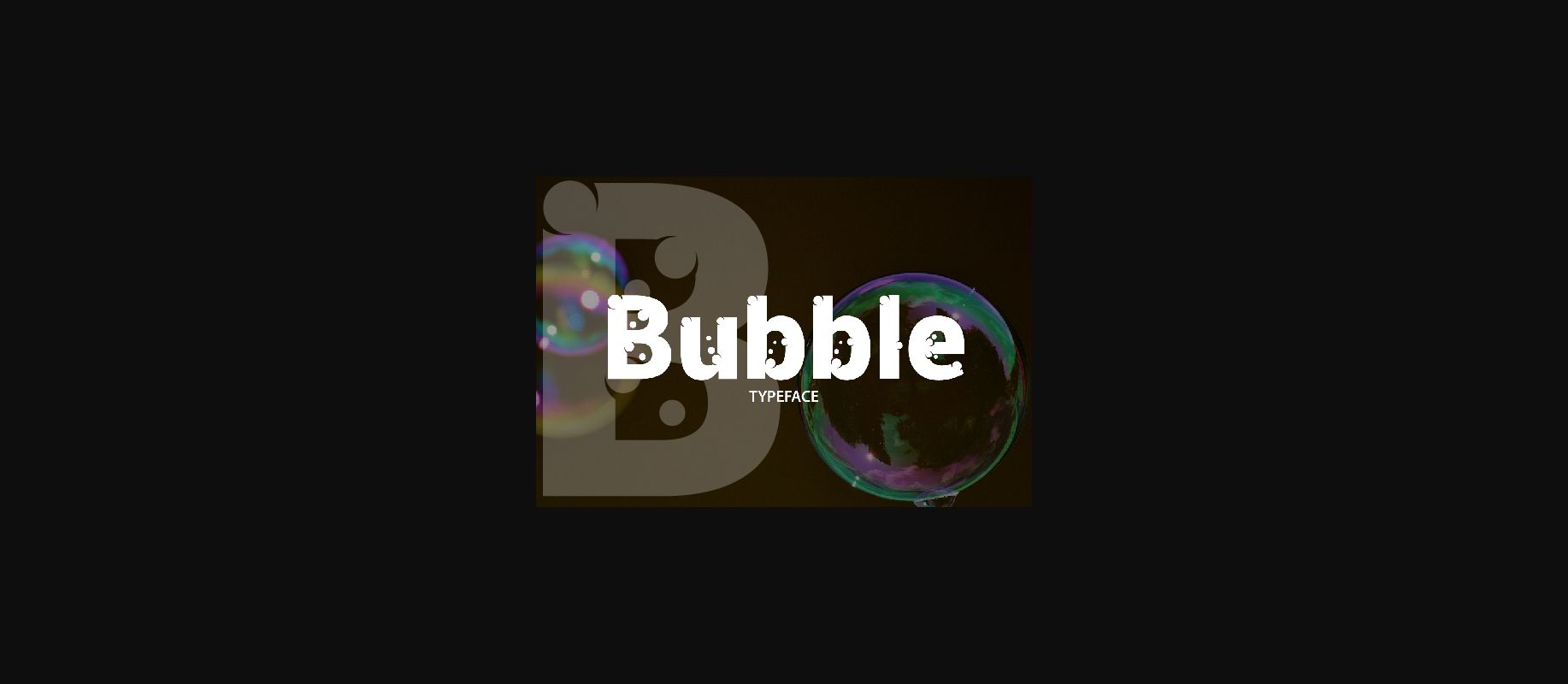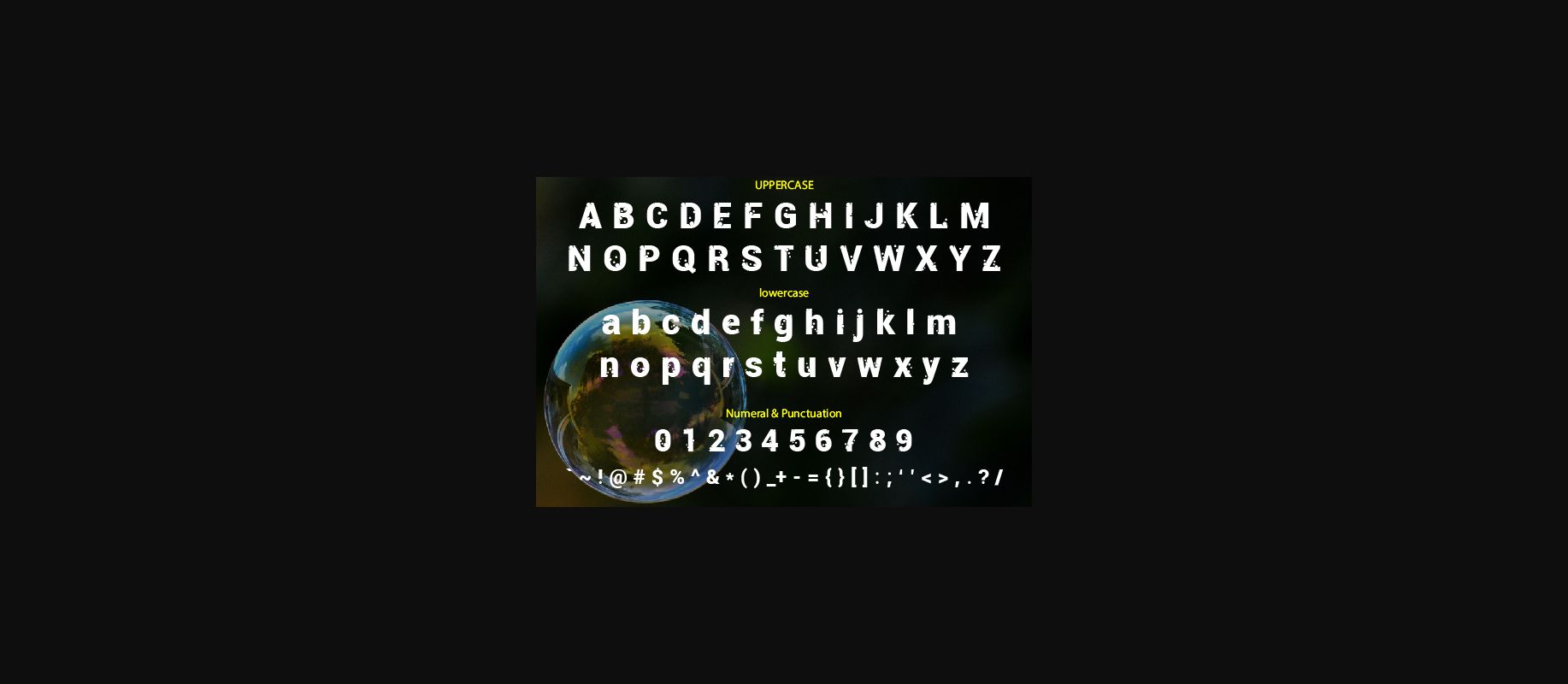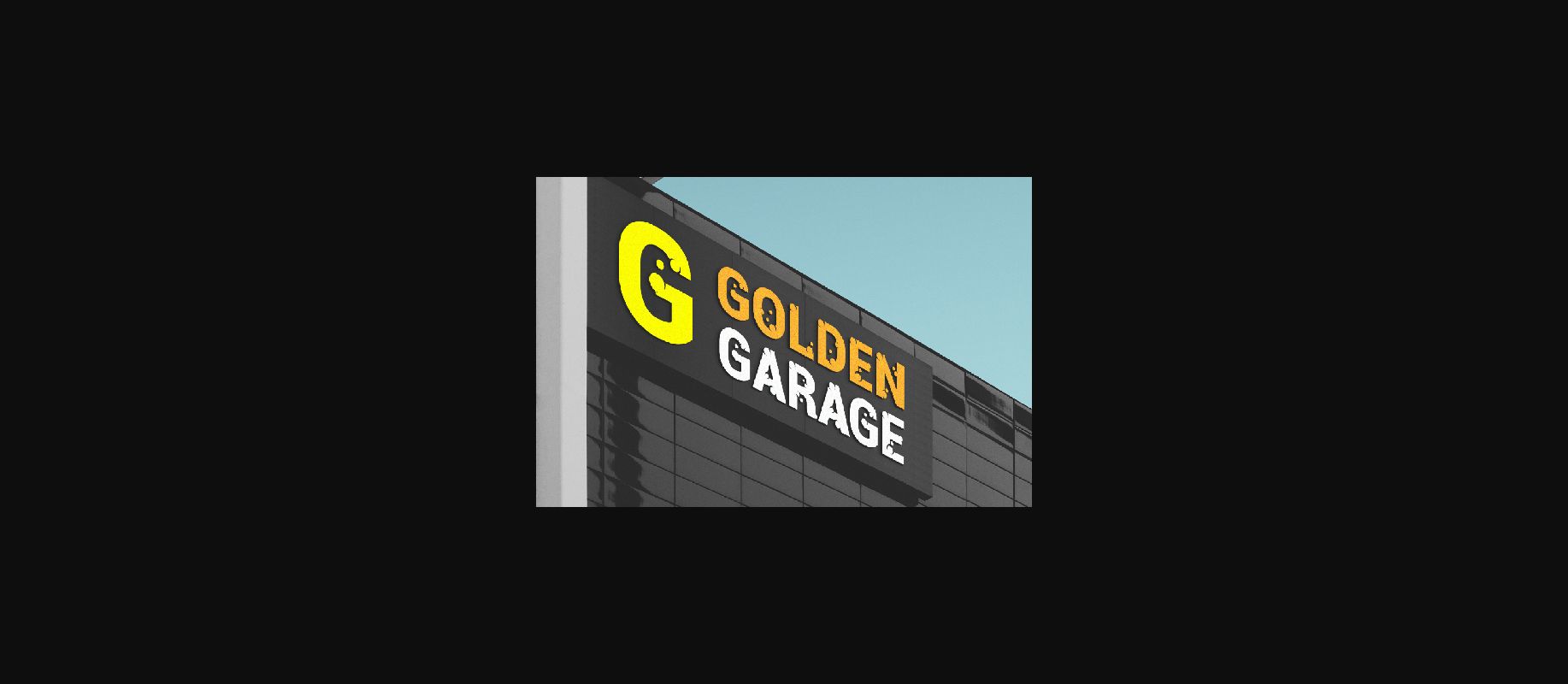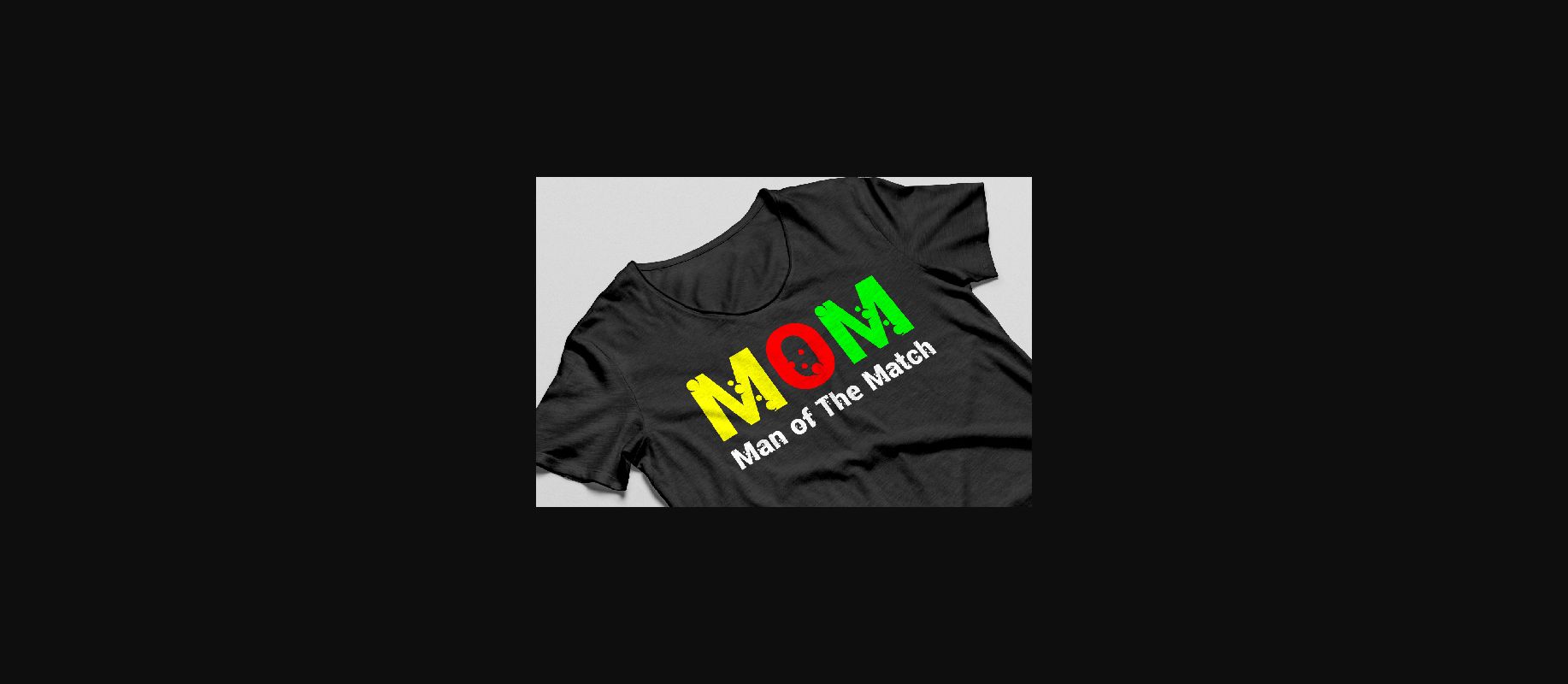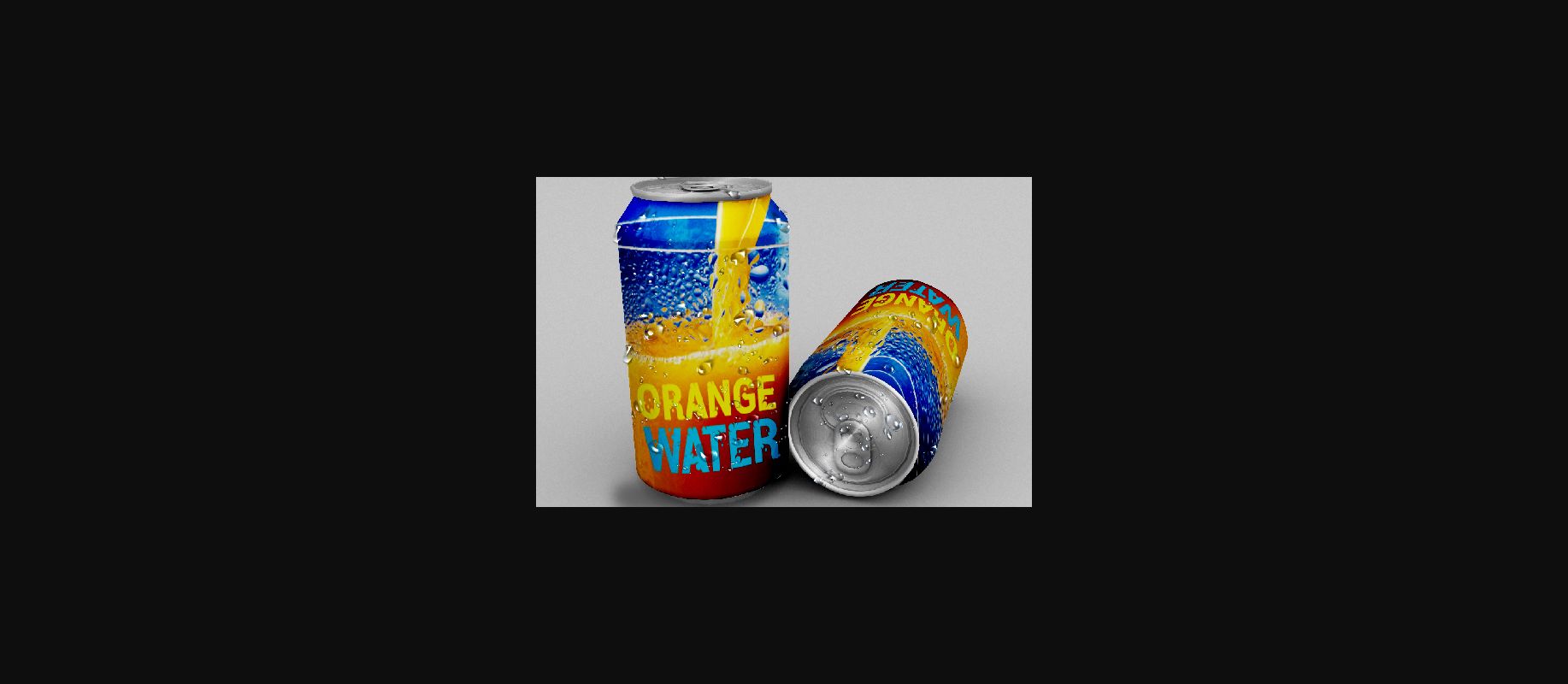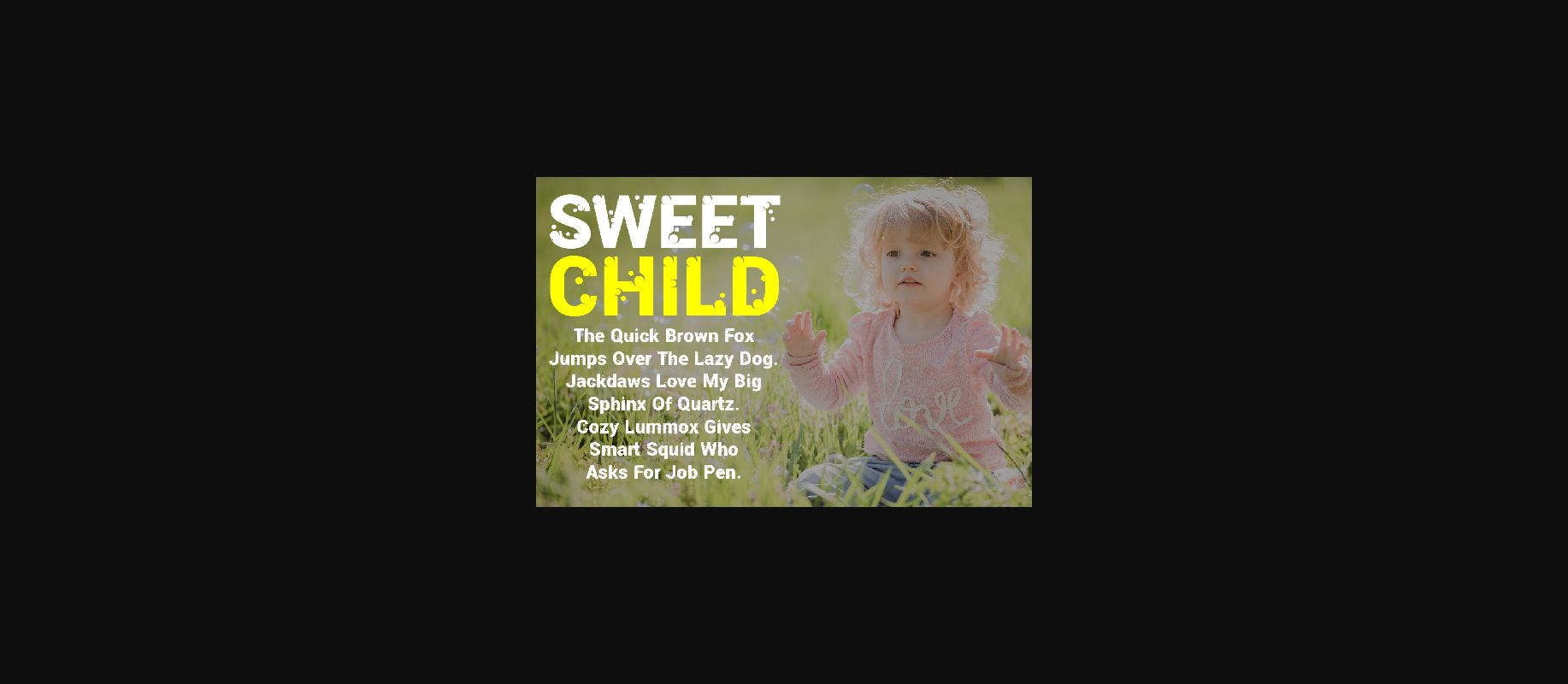
About Bubble Font
Bubble is a charming and unique font with a bubbling and fresh feel. Get inspired by this amazing font and turn any design project into a stand out.